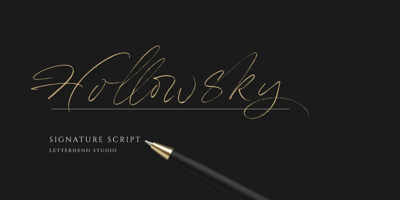
Hollow Sky Font Family was designed by Hendry Juanda and published by Letterhend. Hollow Sky contains 1 styles and family package options. Introducing, Hollowsky – A beautiful signature script based on manual hand writing. The stylistic alternate, ligatures and the rough texture make this font looks a real hand writing instead of typing a font. This type of font perfectly made to be applied especially in logo, and the other various formal forms such as invitations, labels, logos, magazines, books, greeting / wedding cards, packaging, fashion, make up, stationery, novels, labels or any type of advertising purpose.Features : uppercase & lowercase numbers and punctuation multilingual alternates and ligatures PUA encoded We highly recommend using a program that supports OpenType features and Glyphs panels like many of Adobe apps and Corel Draw, so you can see and access all Glyph variations.